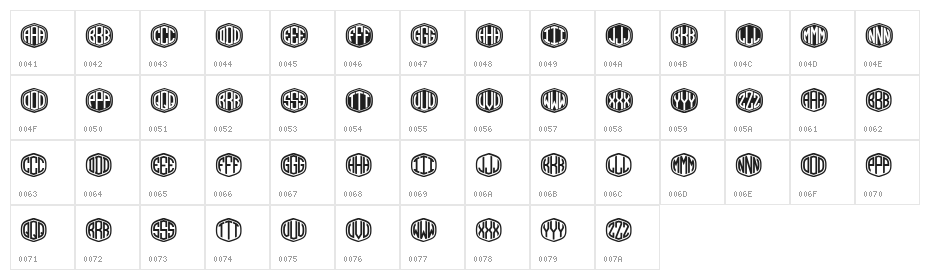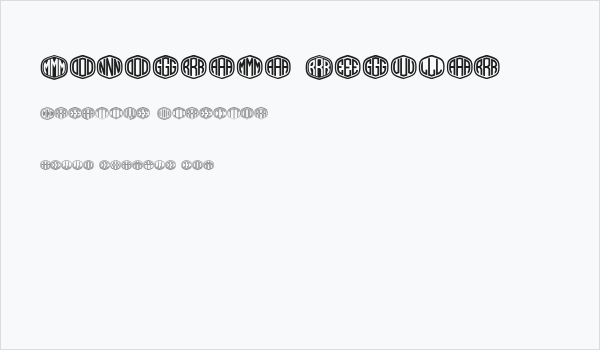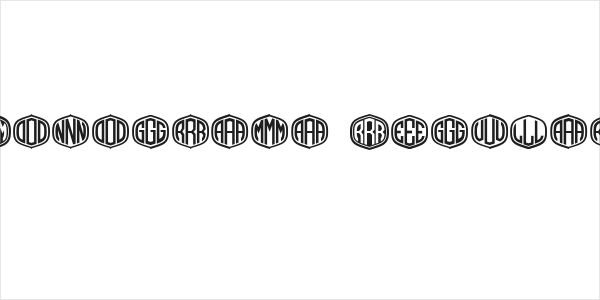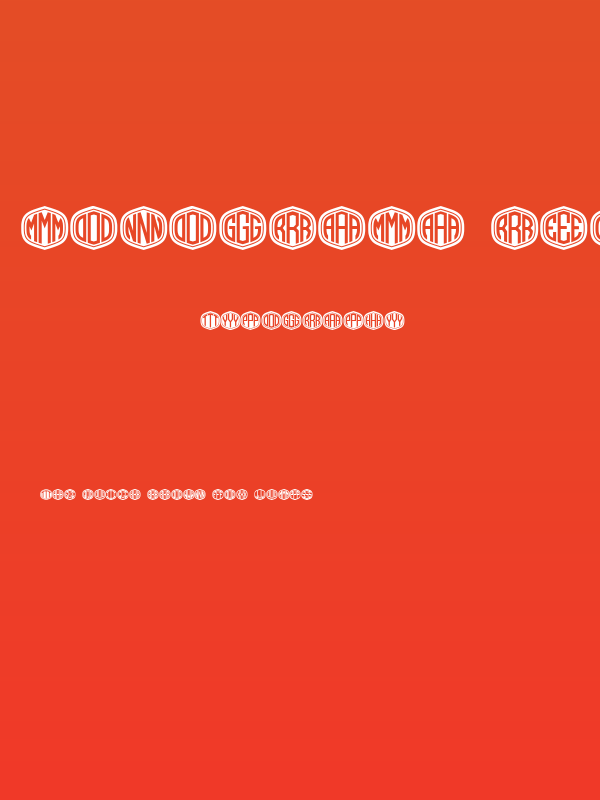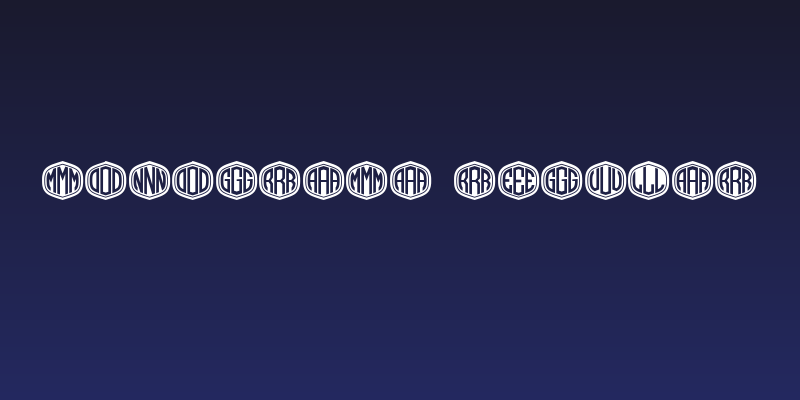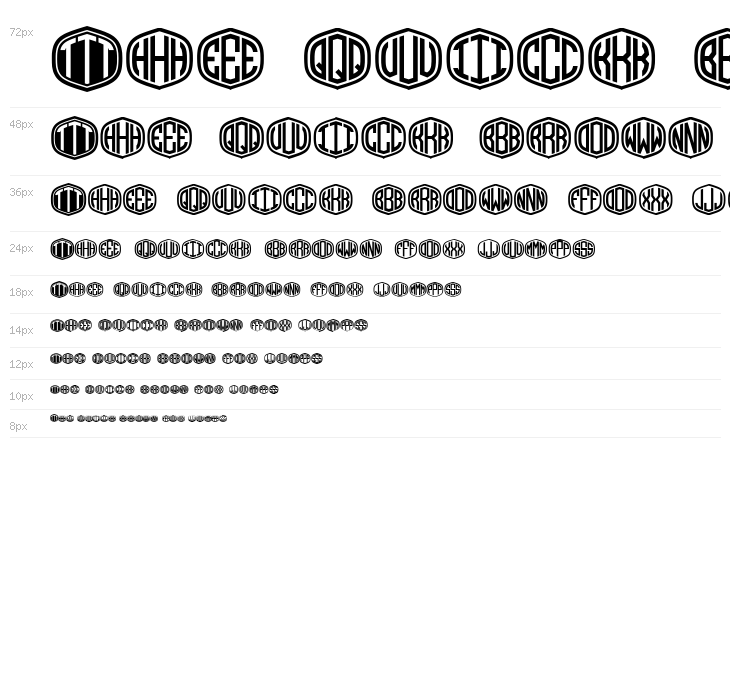
Monograma Regular Font
Monograma Regular Description
This font features a unique monogram style with each character enclosed in a hexagonal shape. The letters are bold and capitalized, with a distinct geometric design that emphasizes symmetry and balance. The strokes are consistent in thickness, providing a uniform appearance across all characters. This font is particularly striking due to its decorative nature, making it ideal for creating personalized monograms or logos. The enclosed design adds a sense of formality and elegance, while the boldness ensures visibility and impact.
| Use Case | Logos, Monograms, Branding |
| Proposed Projects | Ideal for creating personalized monograms, logos, branding materials, and decorative elements. |